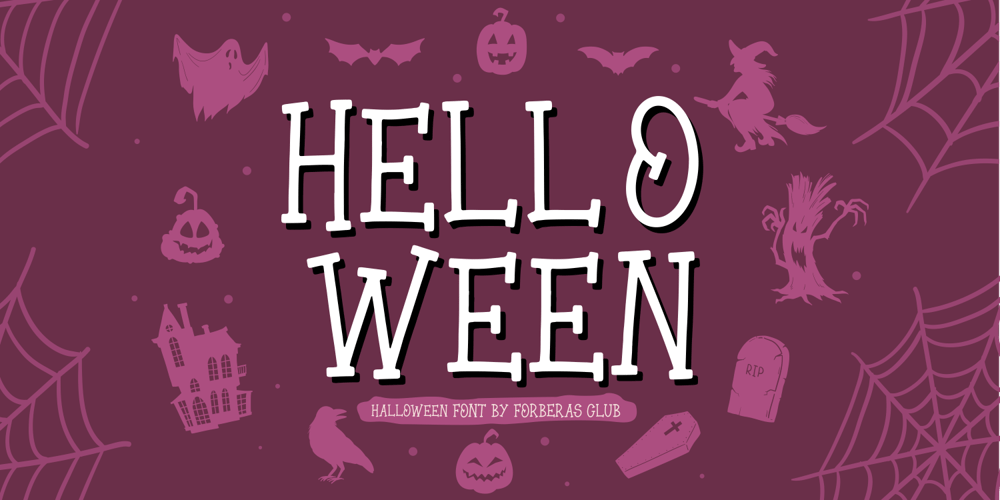
Hell O Ween Font Family was designed by ANGGI HERMAWAN and published by Forberas Club. Hell O Ween contains 1 styles and family package options. Introducing Hell O Win by forberas, This font born to be a Halloween Project. But still can be made as a display font, and still suit your other fun project. Your review and response are most welcome.